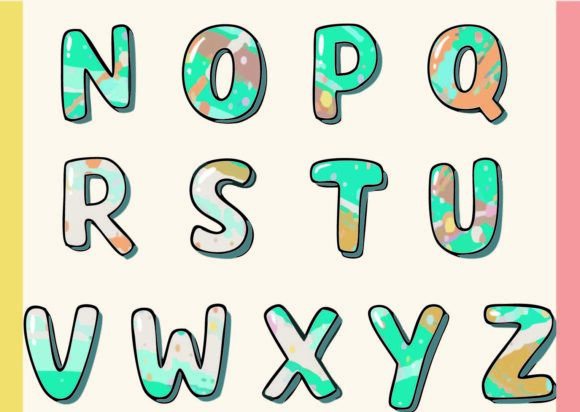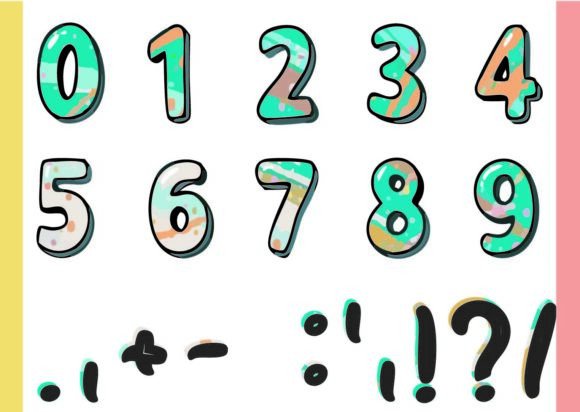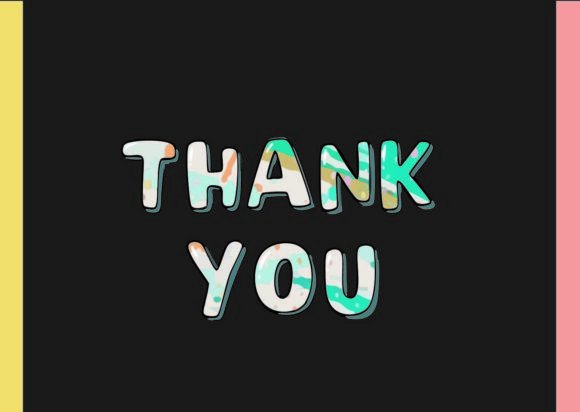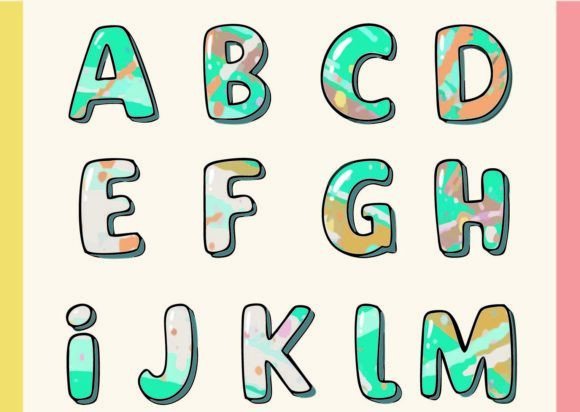
Introduction to Jane Font
Every single glyph has a different set of colors.
A colorful heaven, if you will If you look closely at the glyphs, you’ll see complex sets of paths and connections in every single one of them.
Key Features of Jane Font